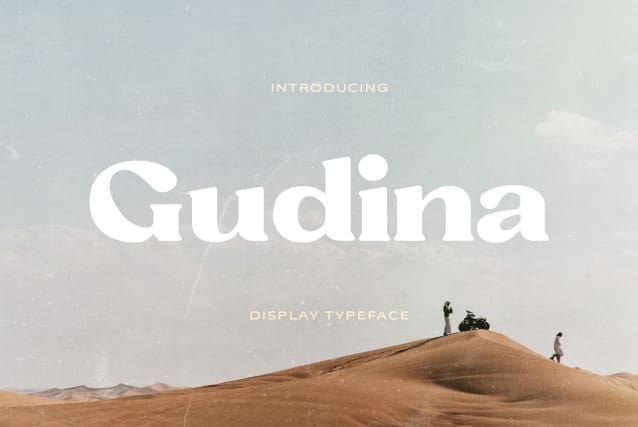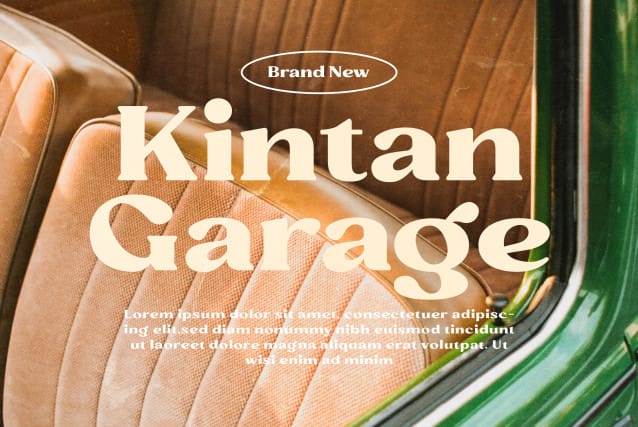
Gudina Serif Font
Gudina Serif Font: Utilizing Gudina’s unique Serif font in varying sizes and layouts will lend an instant sophisticated flair to any project, whether it be branding, advertising, logo design, packaging, or headline text. It’s a powerful typeface that can transform the mundane into a breathtaking work of art.
No fussing over complicated accents and details needed, just some creative layout and variation in font sizes to achieve a remarkable design!
• Renowned for its excellent legibility